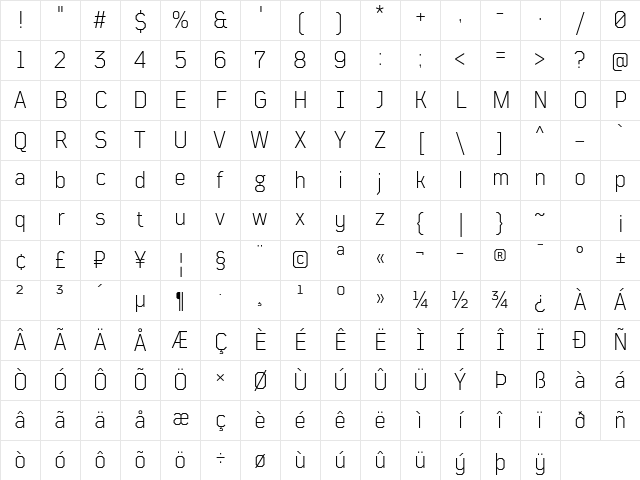
Complete TT Mussels Trl Light glyph index. Displaying only characters natively supported by TT Mussels Trl Light font.
TT Mussels Trl is a composed and adaptable typeface that performs quietly and consistently across a wide range of design contexts. Its slender proportions lend an understated elegance to any composition.